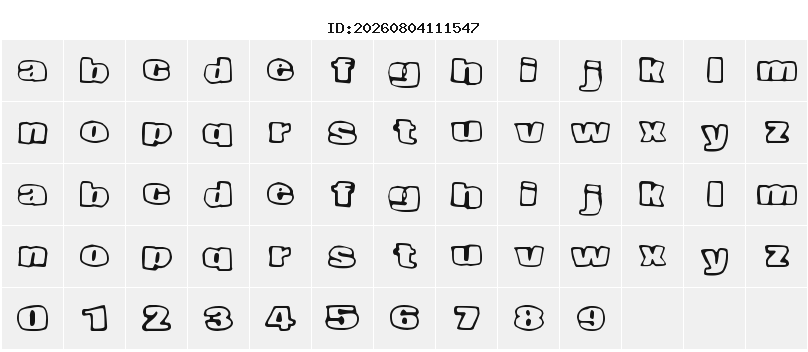
Nopee Torstai Preview
• Font Name: Nopee Torstai
• Full Font Name: Nopee Torstai
• Version: Version 1.00 June 7, 2014, initial release
• Designer: junkohanhero
About Nopee Torstai.ttf
Nopee Torstai.ttf is a modern, elegant sans-serif font designed for ultimate readability and visual harmony. Perfect for branding, headlines, web design, and print materials.